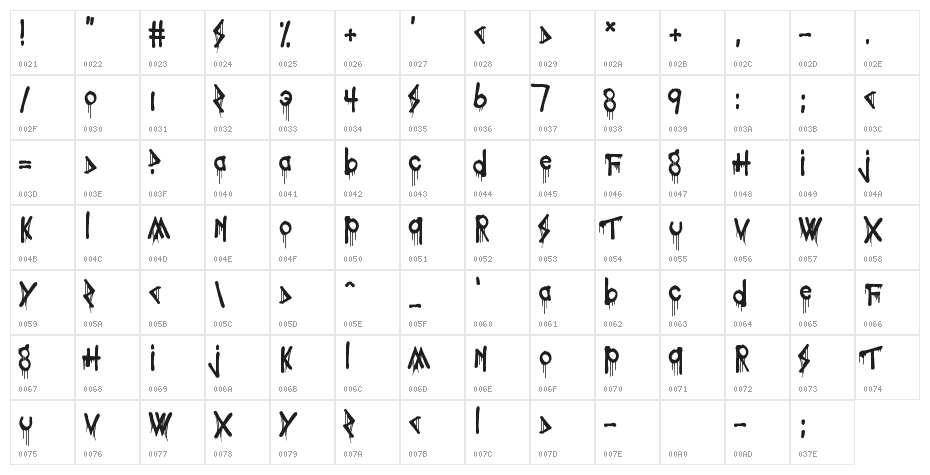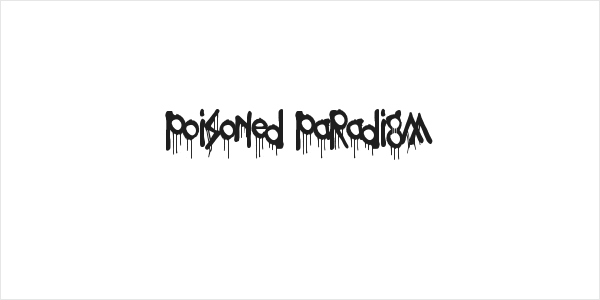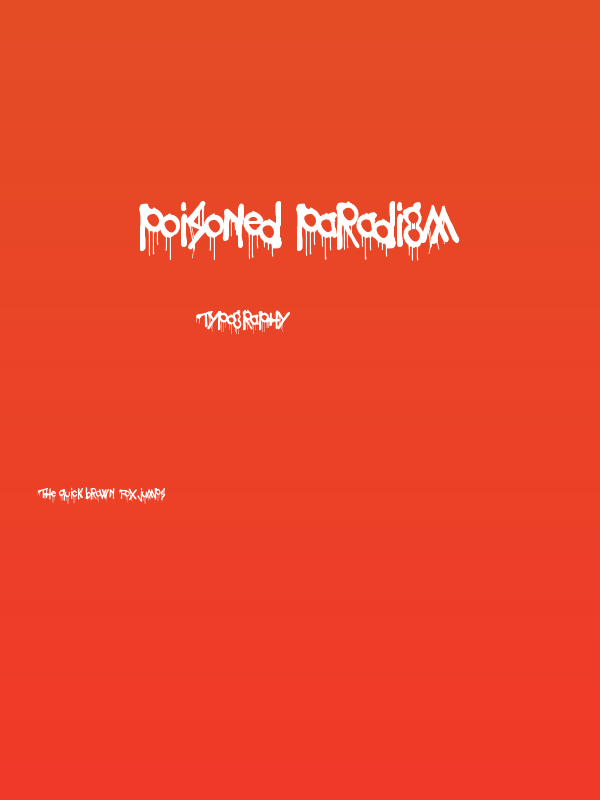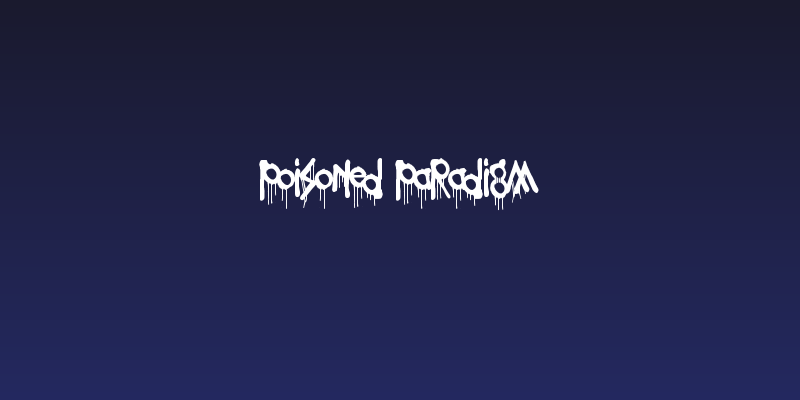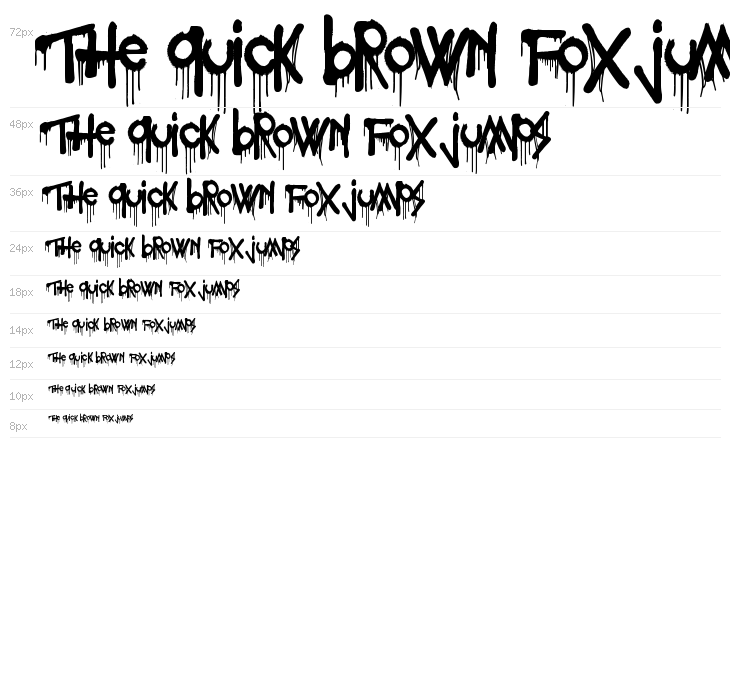
Poisoned Paradigm Font
Poisoned Paradigm Description
This font exudes a rebellious and edgy vibe, reminiscent of urban street art and graffiti. The letters are bold and dynamic, with a dripping paint effect that adds a raw, unfinished look. The uppercase and lowercase characters maintain a consistent style, with angular and sharp edges that convey a sense of urgency and movement. The numbers and special characters follow the same aesthetic, ensuring a cohesive appearance across all text. This font is perfect for projects that aim to capture the essence of street culture or convey a message with impact and attitude.
| Overall Style | Urban, Edgy, Rebellious |
| Use Case | Logos, Posters, Album Covers |
| Proposed Projects | Ideal for street art designs, music album covers, urban-themed posters, and edgy branding projects. |